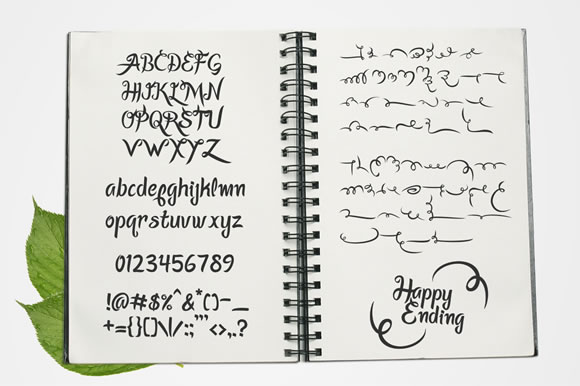
Introducing Happy Ending Font: Elevate Your Designs with Elegance
Are you a designer, crafter, or DIY enthusiast looking for a sophisticated typeface to elevate your projects? Look no further than Happy Ending Font, an elegant and versatile font perfect for a wide range of applications. In this article, we’ll dive into the features and benefits of Happy Ending Font, and explore how it can enhance your designs.
What is Happy Ending Font?
Happy Ending Font is a beautifully crafted typeface designed to add a touch of elegance to your projects. With its refined lines and classic proportions, this font is ideal for creating stunning logos, headings, book covers, invitations, and more. Whether you’re working on a professional design project or a personal crafting endeavor, Happy Ending Font is sure to impress.
Key Features of Happy Ending Font
- Elegant Design: Happy Ending Font boasts a sophisticated design that’s perfect for creating high-end visuals.
- Versatile: Use it for logos, headings, book covers, invitations, and a wide range of other projects.
- Basic Characters: The font includes basic characters, as shown in the preview, ensuring that you have everything you need to create beautiful text.
Uses for Happy Ending Font
The possibilities are endless with Happy Ending Font. Here are just a few ideas to get you started:
- Logo Design: Create a lasting impression with a custom logo that showcases your brand’s personality.
- Book Covers: Add a touch of sophistication to your book covers and make them stand out on the shelves.
- Invitations: Design beautiful invitations for weddings, parties, and other special events.
- Headings and Titles: Use Happy Ending Font to create stunning headings and titles for your blog posts, articles, and website content.
Benefits of Using Happy Ending Font
So why choose Happy Ending Font for your next project? Here are just a few benefits:
- Save Time: With Happy Ending Font, you can create professional-looking text in minutes, saving you time and effort.
- Elegant Look: The font’s elegant design ensures that your projects will look polished and sophisticated.
Who Can Use Happy Ending Font?
Happy Ending Font is perfect for:
- Graphic Designers: Take your designs to the next level with this elegant typeface.
- Crafters: Add a touch of sophistication to your DIY projects, such as handmade cards and invitations.
- Small Business Owners: Create professional-looking branding and marketing materials with ease.
In conclusion, Happy Ending Font is an excellent choice for anyone looking to add a touch of elegance to their designs. With its versatile design, multiple formats, and ease of use, this font is perfect for a wide range of projects. Whether you’re a designer, crafter, or DIY enthusiast, Happy Ending Font is sure to become a staple in your design toolkit.